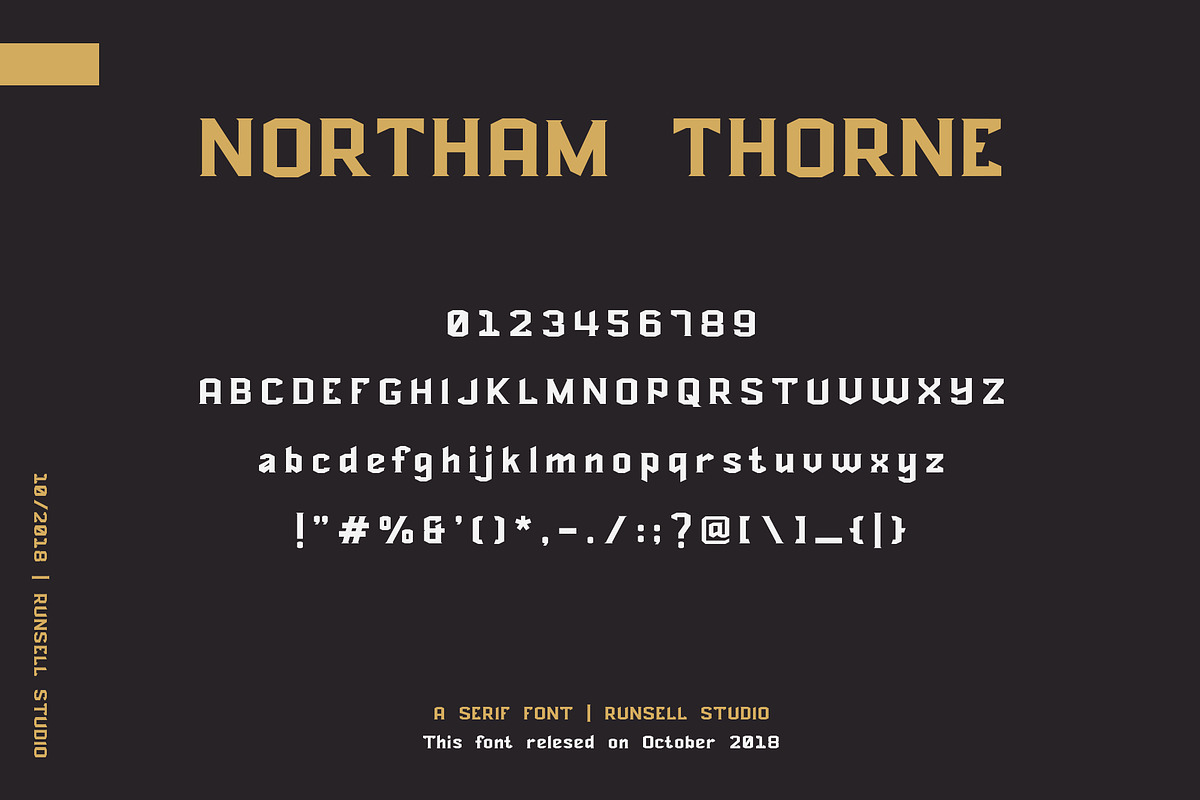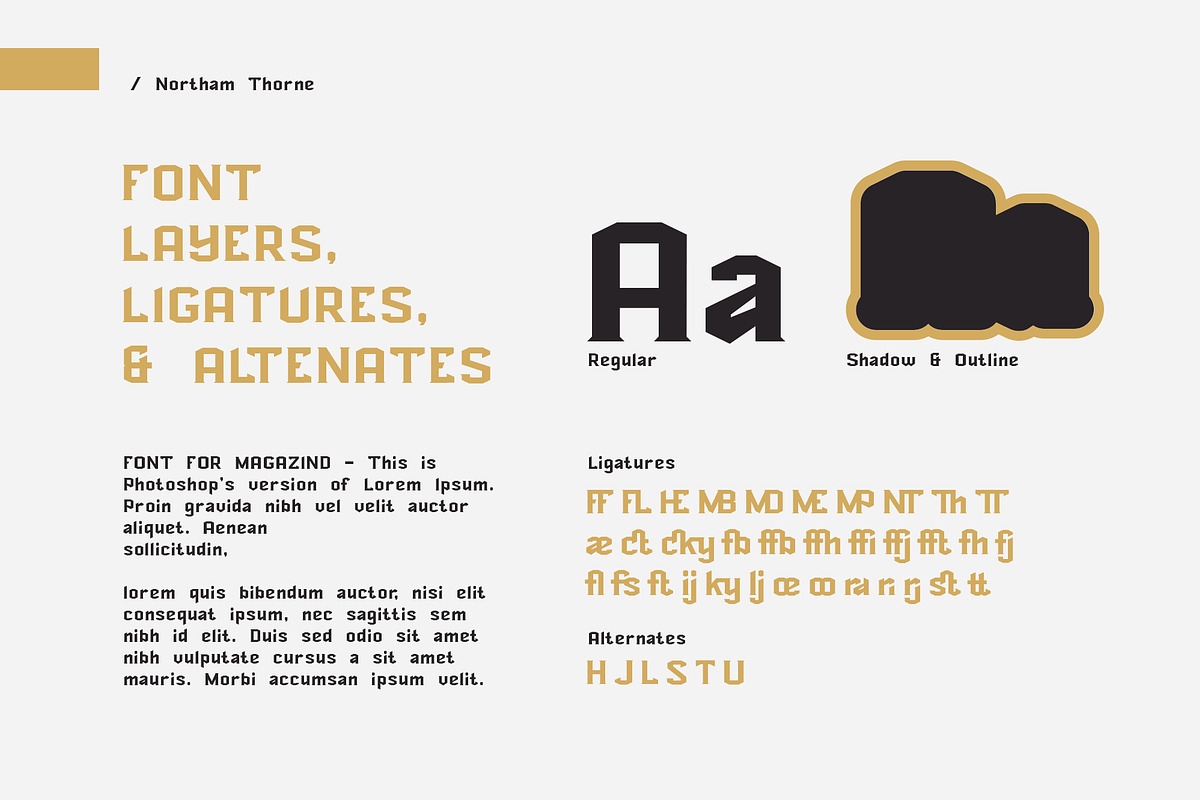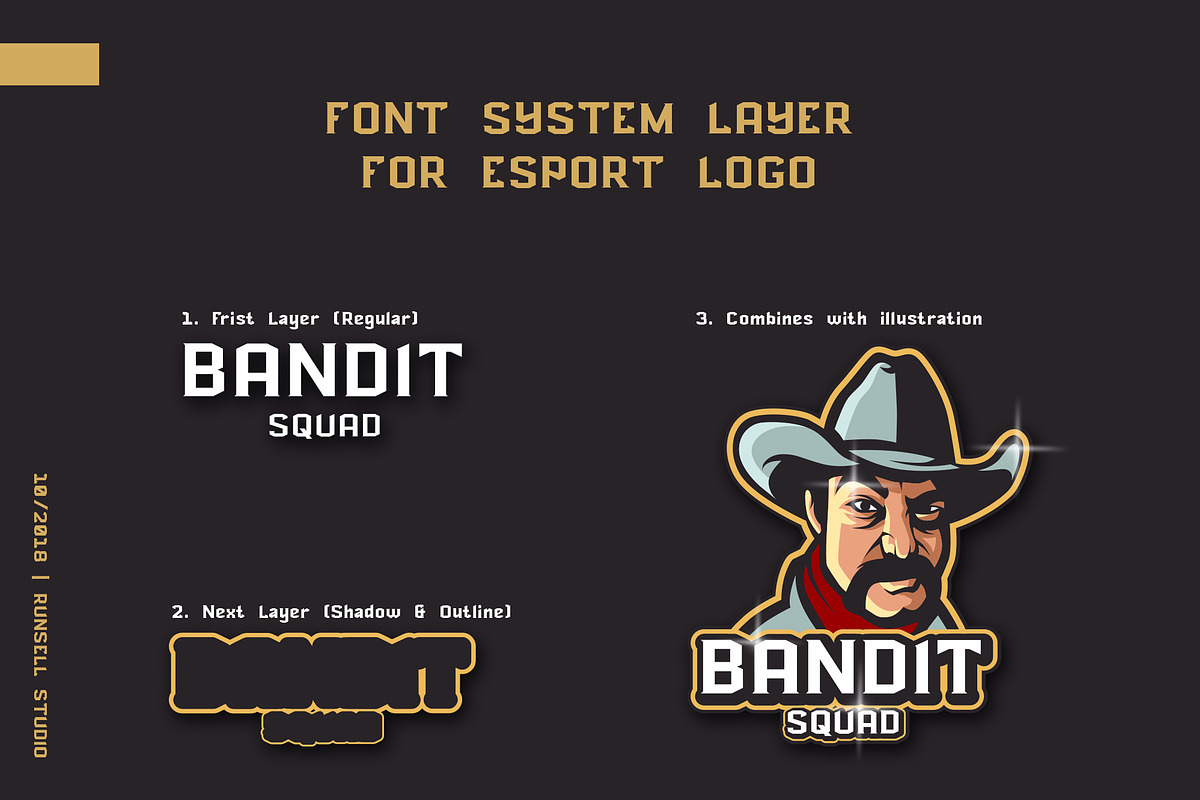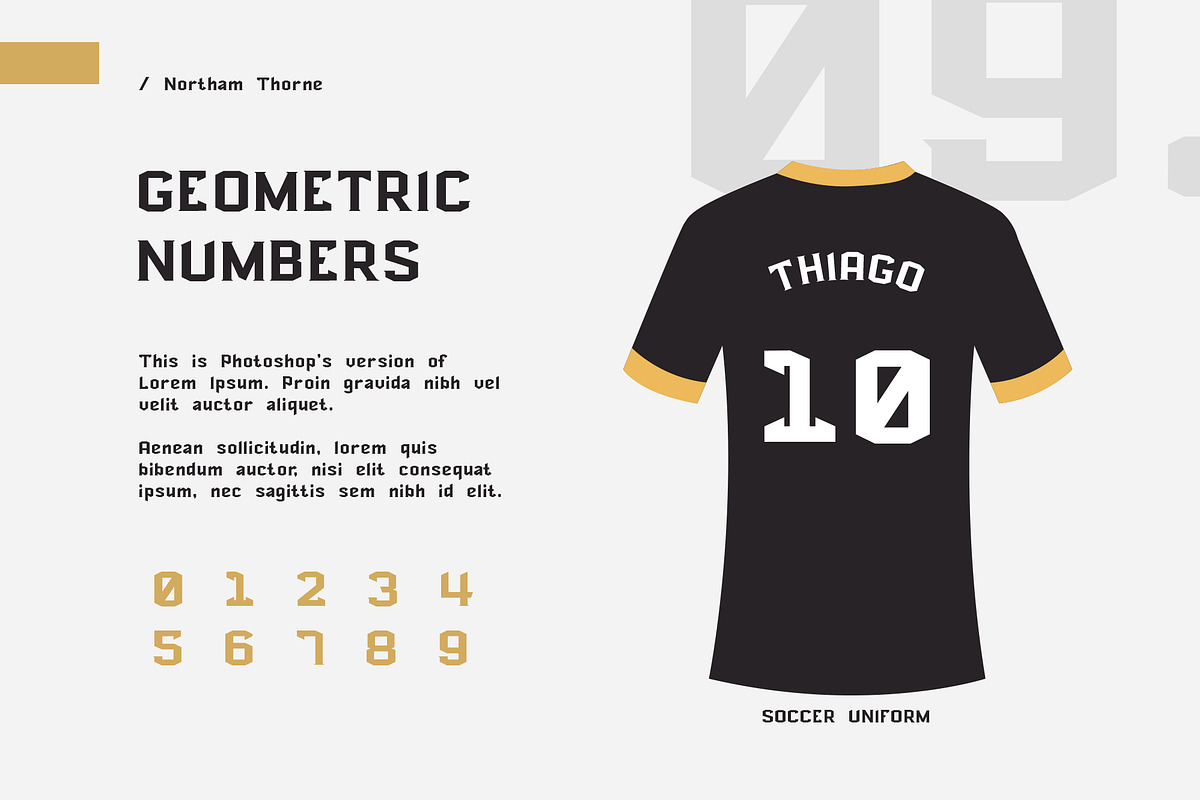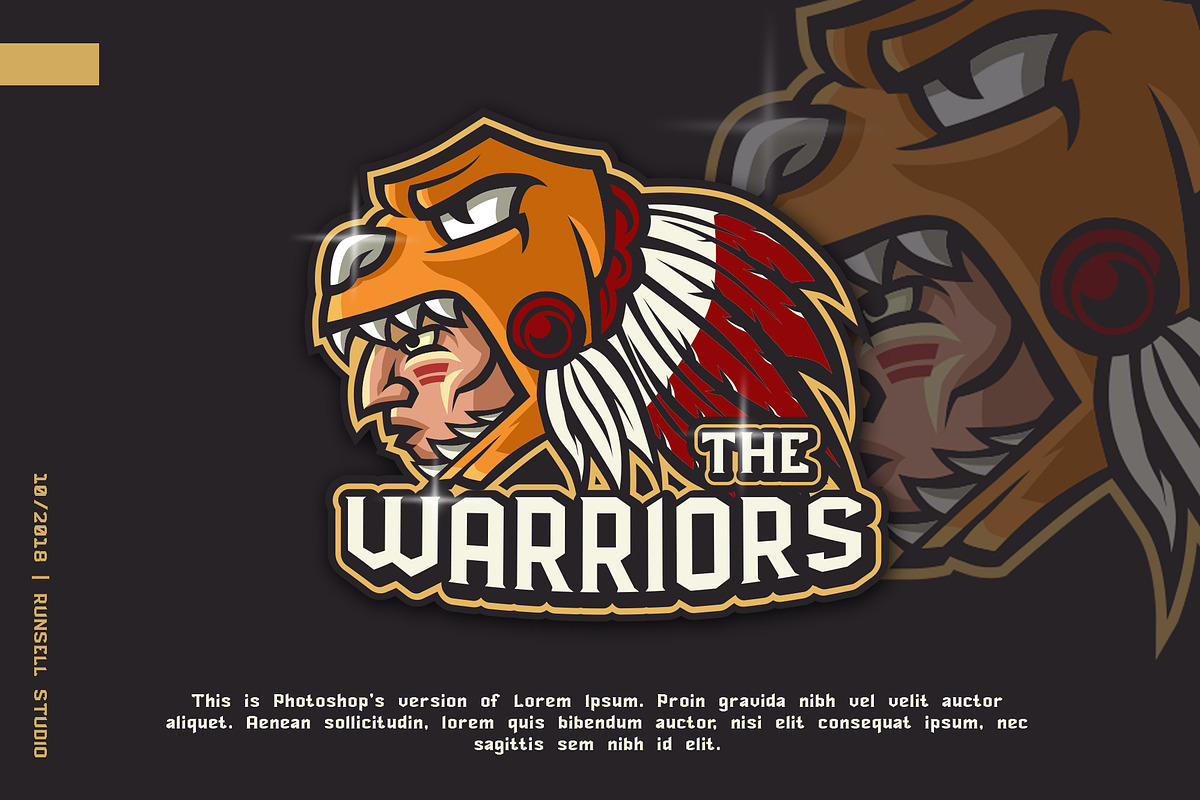
NORTHAM THORNE
Introducing: The project of Northam Thorne created specifically for purpose e-sport logo. This font comes with layered system (regular, shadow and outline). We setting the medium spacing individual letters for perfectly typefaces. Adjust and play the layer fonts to get your best e-sport logo. It is perfect for all projects like ; logotype sticker, apparel, bag, magazine, website headlines, packaging, branding, quotes, business cards, and more. Three of font are supported in PUA Unicode.
Northam Thorne Includes:
- Uppercase, lowercase, numeral, punctuation and symbol
- Some Ligatures
- Uppercase alternates